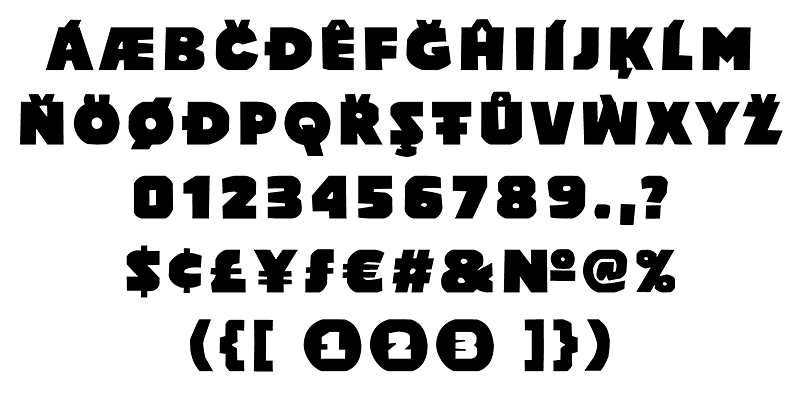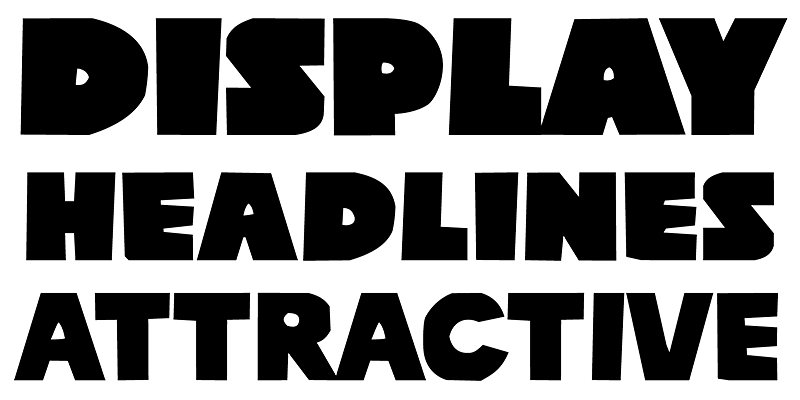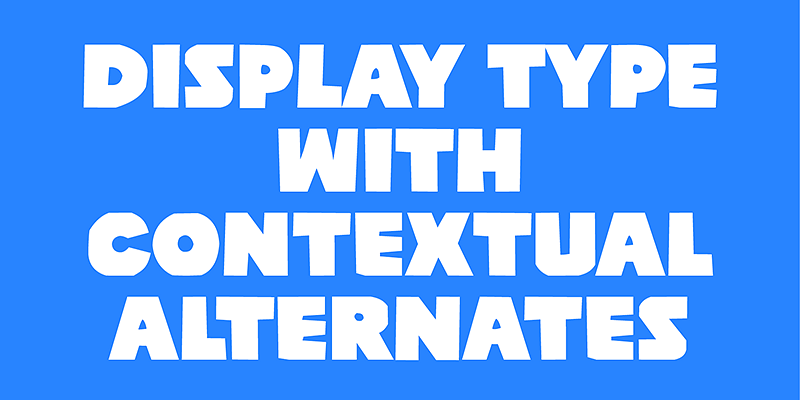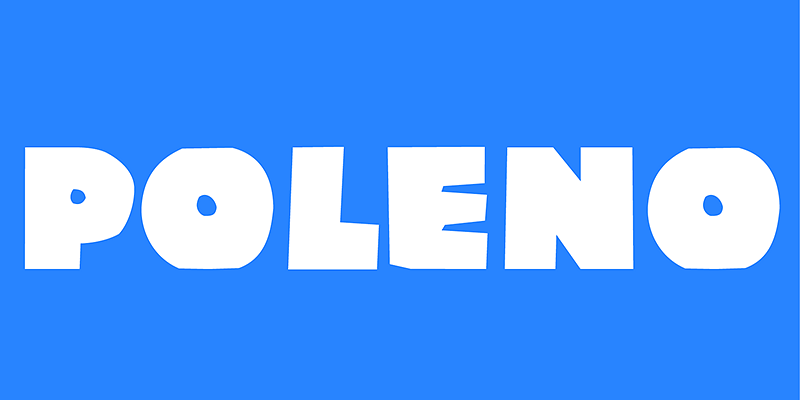
Poleno is a custom typeface originally designed in 2006 for the Slovak folk dance ensemble Poleno, as a part of their corporate identity. Ever since, new weights have been added to complete six variables and two different options for accents. Typeface is inspired by the woodcut book cover made by Martin Benka.
The typeface adds a fresh, bold and non-rational feeling to headlines and titles in books and posters in display sizes where emphasis and detail are equally important. Randomly-generated contextual alternates included in the family contribute to add a distinctive look to words with repeating characters, whenever they occur next to each other.  The difference between the Poleno Set and the Poleno Alt Set is in the accented characters. In the first one, accents are merged with the characters and in Alt version, accents are separated from the characters.